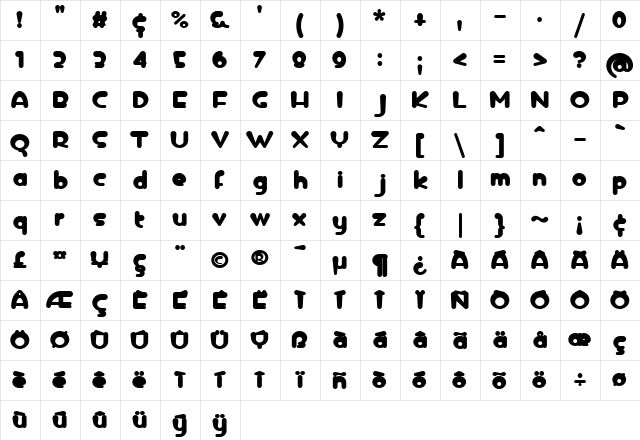
iCE DROP Bold
| Foundry | SnowVanillia |
| Designer | Vanillia |
Design Context for iCE DROP Typeface
iCE DROP offers clean, dependable letterforms without strong stylistic allegiance, making it a practical choice for designers who need flexibility. The heavy weight commands attention and anchors typographic hierarchies.